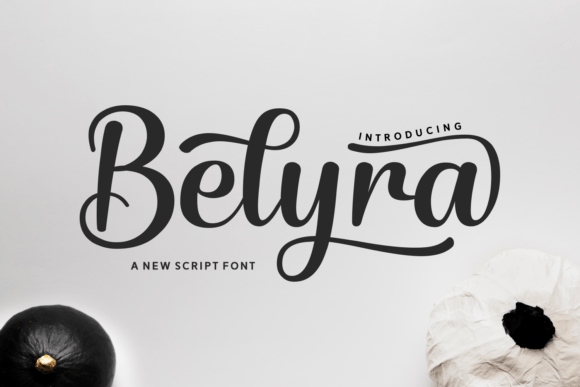
Belyra Font: Elevate Your Design with Modern Calligraphic Elegance
In the world of typography, few fonts manage to strike a balance between elegance and expressiveness. Belyra Font is one such modern calligraphic script that has captured the hearts of designers and crafters alike. Designed for display work, Belyra boasts a unique blend of smooth, brush-pen rhythm and decorative flair, making it an ideal choice for a wide range of design applications.
The Characteristics of Belyra Font
Belyra’s design is characterized by its generous x-height and confident stroke contrast, which work in tandem to create a flowing, handwritten feel. The font features rounded terminals, teardrop dots, and looped ascenders, giving letters a friendly, feminine energy. The long descenders, entry strokes, and sweeping exit swashes link characters into flowing word shapes, creating a sense of movement and fluidity.
Unique Features of Belyra Font
- Capital Letters: The capital B opens with a lively loop, while the l climbs into a soft oval, adding a touch of sophistication to your designs.
- Lowercase Letters: The y and r curl back with balanced counterforms, and the final a lands in an elegant tail that can extend for underlines, perfect for creating beautiful, flowing text.
- Alternates, Ligatures, and Swashes: Belyra Font comes with a range of alternates, ligatures, and stylistic swashes, making it easy to create effortless logo lockups and add a touch of personality to your designs.
Applications of Belyra Font
Belyra Font is incredibly versatile and can be used in a variety of design applications, including:
- Branding: Add a touch of elegance and sophistication to your brand identity with Belyra Font.
- Packaging: Create eye-catching packaging designs that stand out on store shelves.
- Invitations: Design beautiful, handmade-style invitations for weddings, parties, and other special occasions.
- Social Media: Elevate your social media posts with Belyra Font’s unique blend of elegance and expressiveness.
- Merchandise: Create stunning merchandise designs, from t-shirts to tote bags, that showcase your brand’s personality.
- Signage: Use Belyra Font to create eye-catching signage that adds a touch of warmth and polish to any business or event.
Belyra Font comes with a range of technical features that make it easy to use and accessible:
- Precision Spacing: The font features precision spacing, making it ideal for headlines and short texts at large sizes.
Why Choose Belyra Font?
Belyra Font offers a unique combination of elegance, expressiveness, and versatility, making it an excellent choice for designers and crafters looking to elevate their designs. With its modern calligraphic style, Belyra Font adds a touch of warmth and polish to any design, making it perfect for a wide range of applications.
Belyra Font is a stunning modern calligraphic script that offers a unique blend of elegance and expressiveness. With its range of technical features, versatility, and beautiful design, Belyra Font is an excellent choice for designers and crafters looking to add a touch of sophistication and handmade charm to their designs.